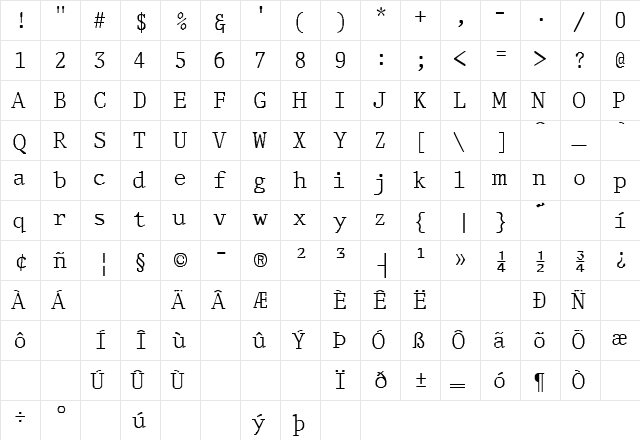
ThirdCopySSK Regular
Design Context for ThirdCopySSK Typeface
ThirdCopySSK offers clean, dependable letterforms without strong stylistic allegiance, making it a practical choice for designers who need flexibility.